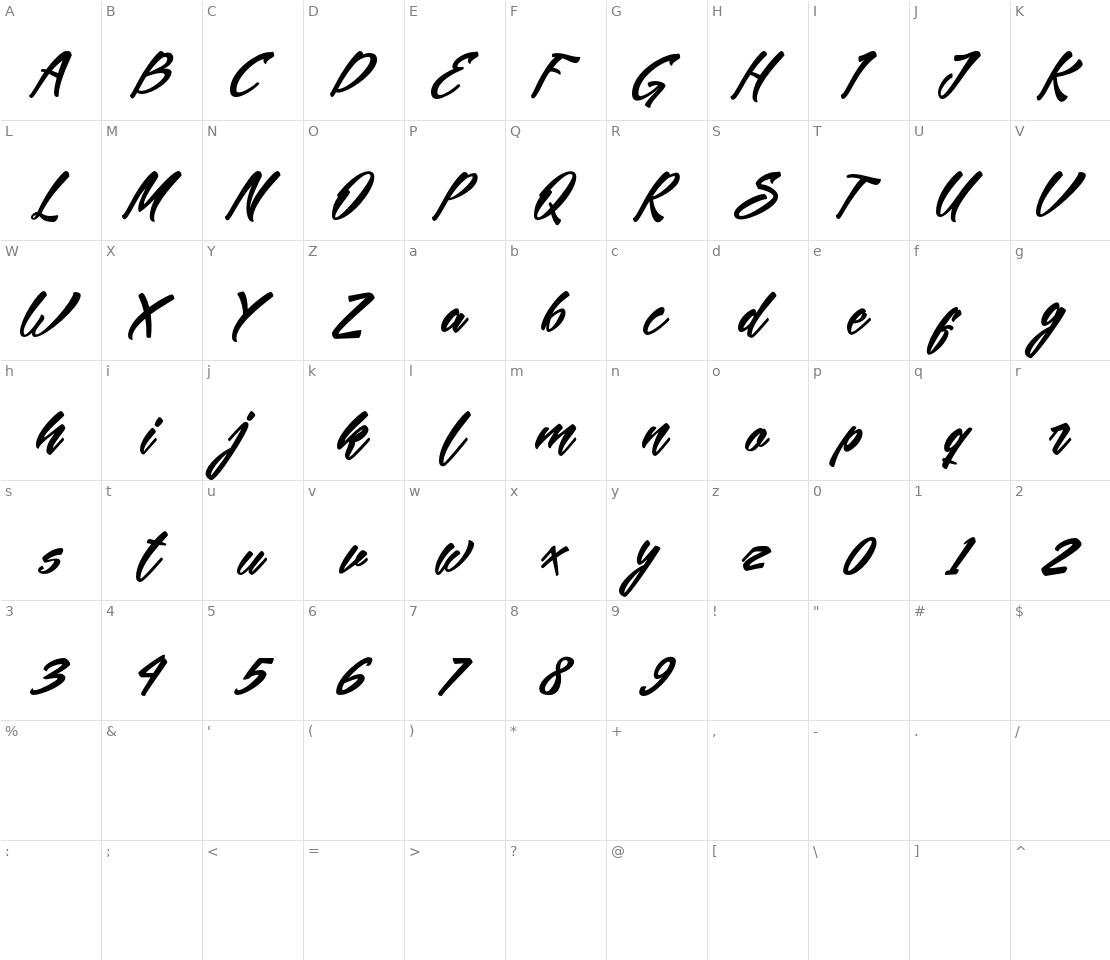
Mekar Script
Mekar Script is a bold brush script from Aulia Rahman with thick, sweeping strokes that carry real kinetic energy. The letterforms feel fast and expressive, like they were laid down in a single confident pass with a wide brush. Built for posters, packaging, and headlines where you need type that feels physical and alive.